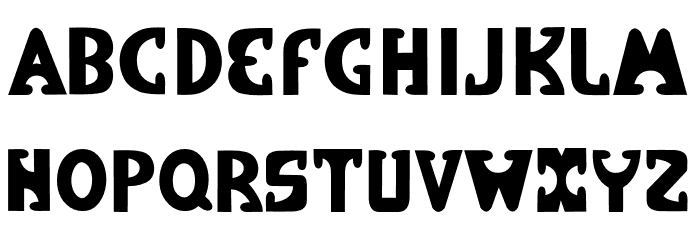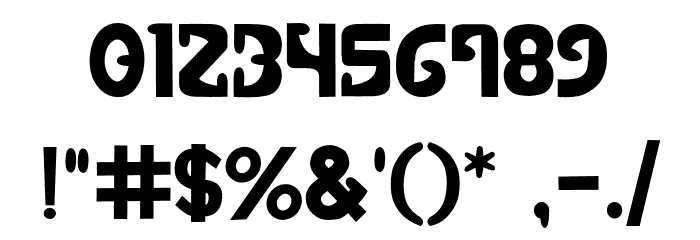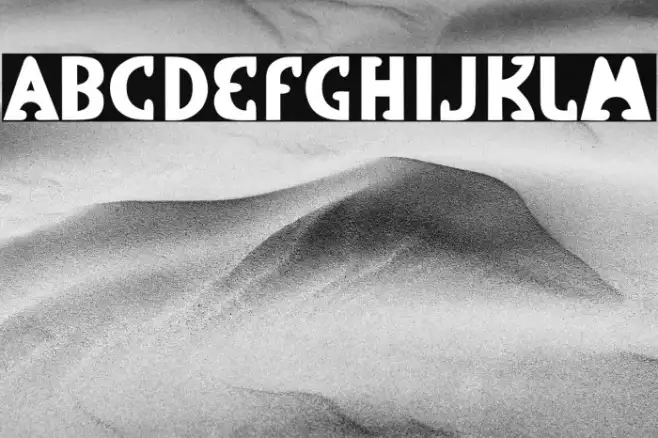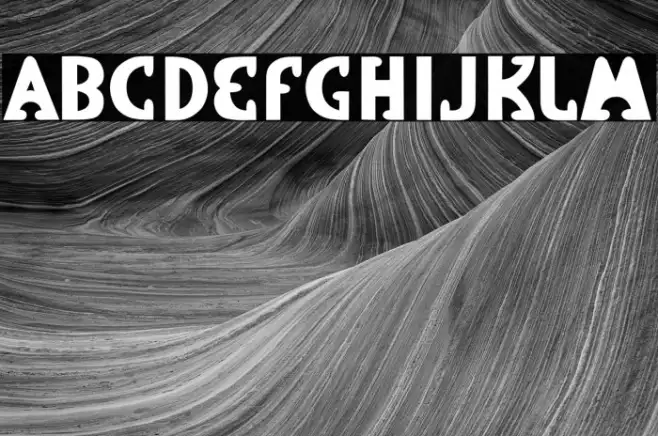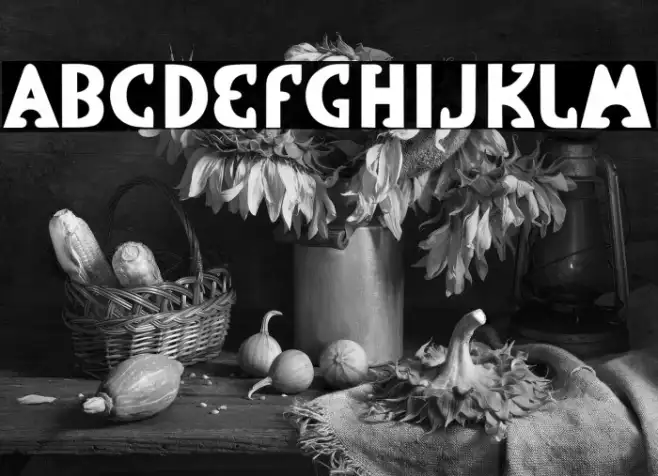
Nails&Hammer Font
This font features a bold and dynamic style with a strong presence. The characters are designed with unique, angular cuts and curves, giving it a distinctive and eye-catching appearance. The uppercase letters are particularly striking, with a combination of sharp edges and rounded elements that create a sense of movement and energy. The numbers and special characters maintain this bold aesthetic, ensuring consistency across all glyphs. This font is ideal for projects that require a strong visual impact and a modern, edgy feel.
A bold, dynamic font with angular cuts and curves for a striking appearance.
- Font: Nails&Hammer
- Proposed Projects: Ideal for branding, posters, headlines, and any design needing a bold statement.